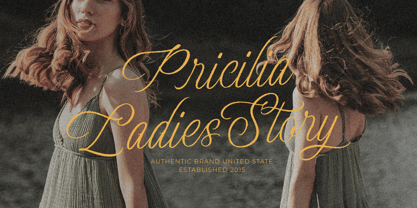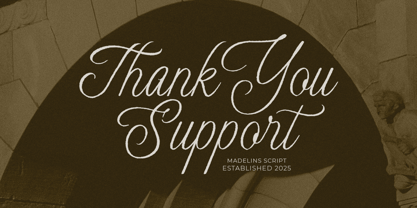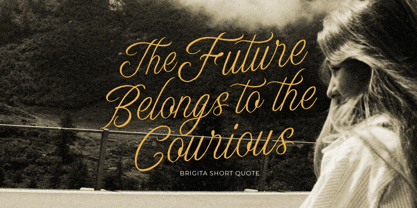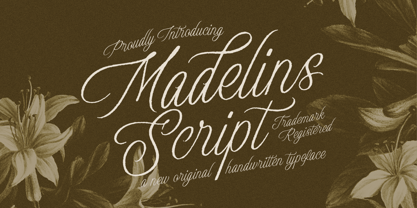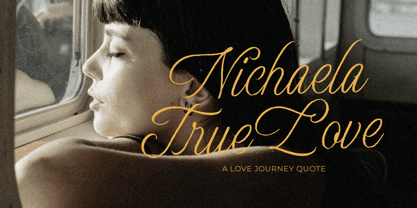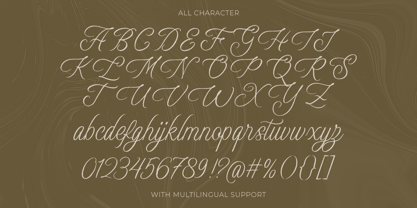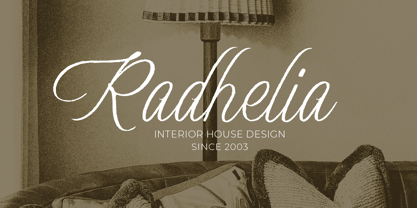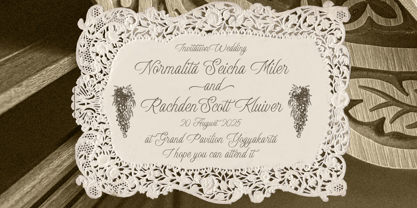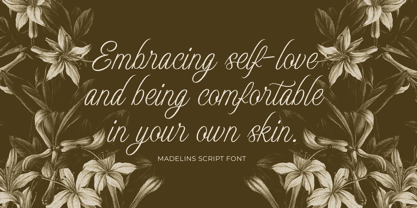
Madelins
by Letterhend
The Madelins Font Family was designed by Hendry Juanda and published by Letterhend. Madelins contains 1 styles. More about this family
Madelins Script is an elegant and refined handwritten script font with a natural flow and vintage charm. Its calligraphic strokes and graceful curves make it perfect for creating romantic, luxurious, or artistic design projects.
Features :
• Uppercase & lowercase
• Numbers and punctuation
• Alternates & Ligatures
• Multilingual Support
Designers: Hendry Juanda
Foundry: Letterhend